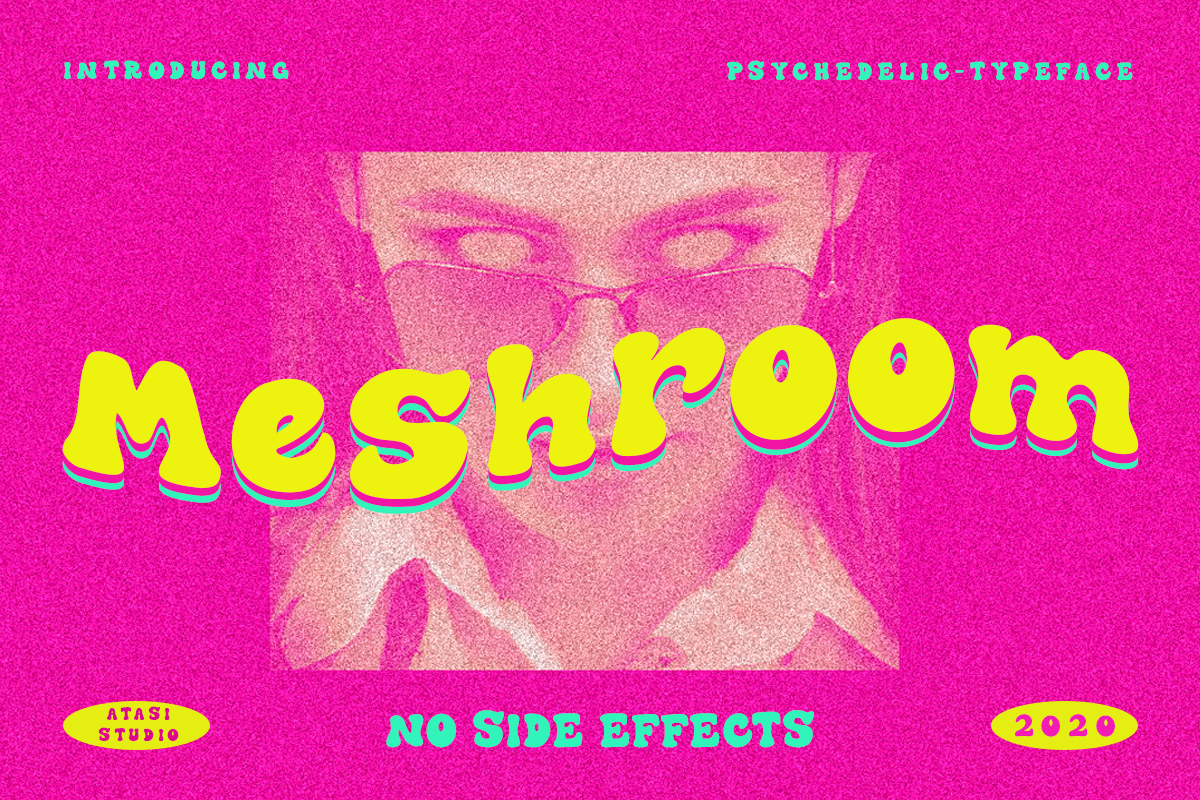
The Meshroom
THE MESHROOM is a display groovy font with a psychedelic look and trippy effect. THE MESHROOM is ready and Perfectly fit for your logo designs, music projects & social media posts, event poster, brand imagery, product packaging, handwritten quotes, merchandise, etc. More importantly, please don't hesitate to drop me a message if you have any issues or queries.